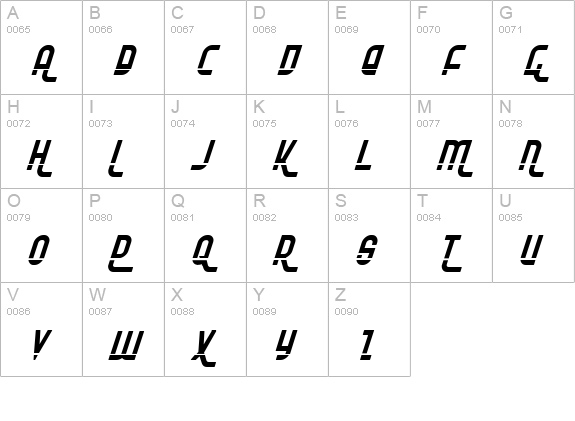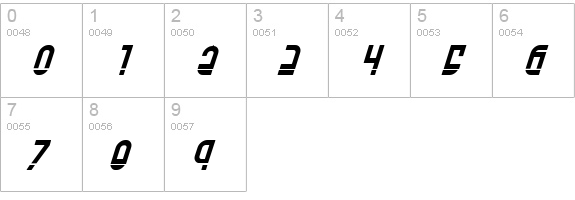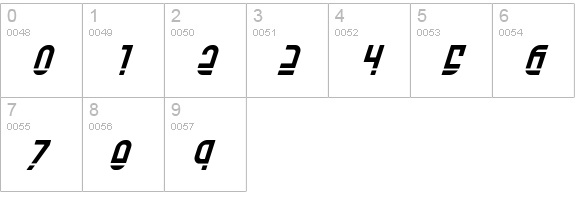
Ro'Ki'Kier Laser Italic is a distinctive, italic variant in the Ro'Ki'Kier typeface family \xE2\x80\x94 well suited to design and typography projects.
Ro'Ki'Kier Laser Italic font is a sleek and modern typeface designed for those who want to make a bold statement with their text. The sharp, laser-cut edges give this font a futuristic and edgy feel, making it perfect for projects that require a high-tech or avant-garde aesthetic. This italic version adds a dynamic and dynamic touch to your designs, enhancing the overall visual impact. The slanted angles and stylized letterforms create a sense of movement and energy, making your text come alive on the page. Best of all, Ro'Ki'Kier Laser Italic font is completely free to download at FontsMarket.com. Whether you're working on a personal project or a professional design, this font offers a versatile and eye-catching option that will elevate your work to the next level. Don't miss out on the opportunity to add this unique and striking font to your collection today!